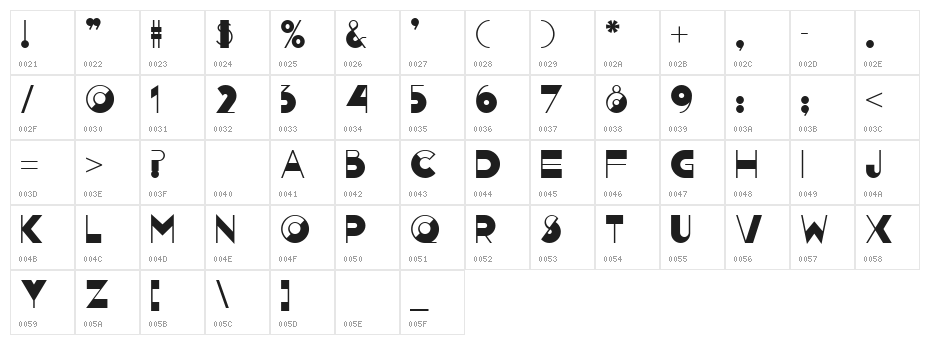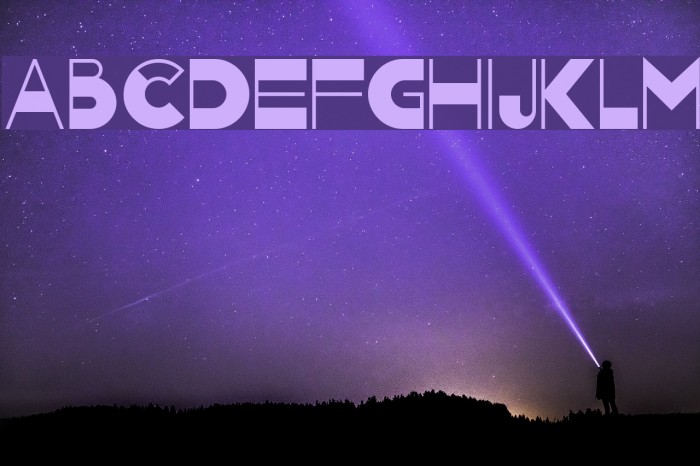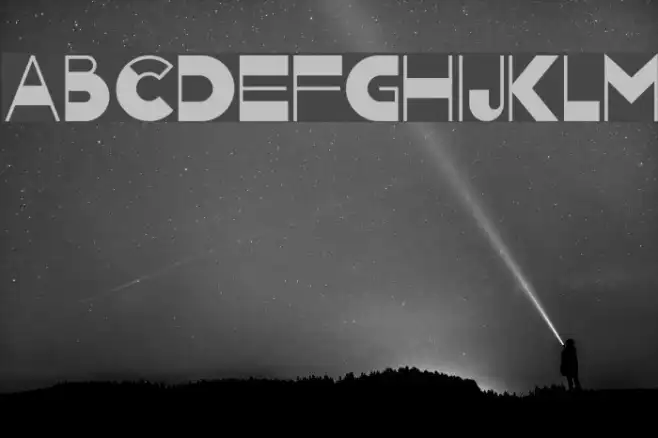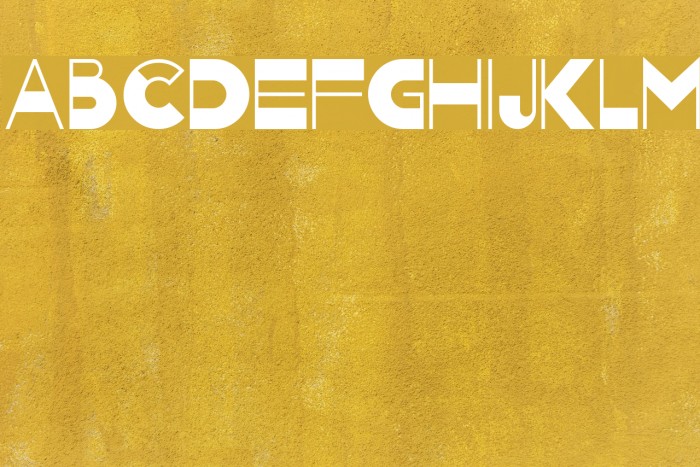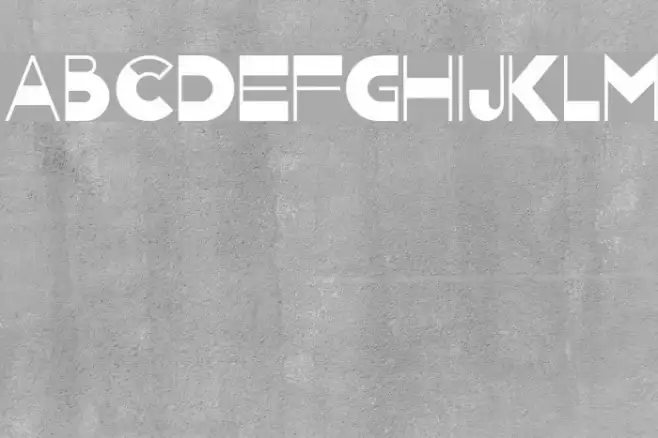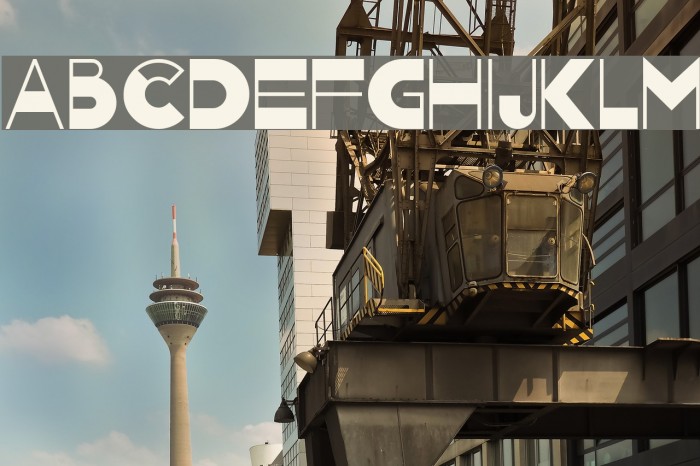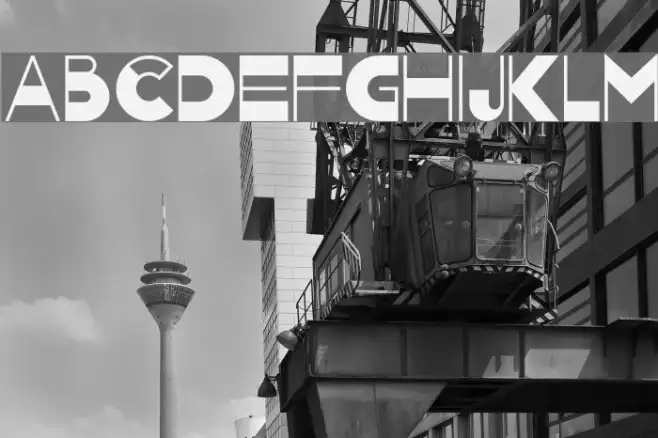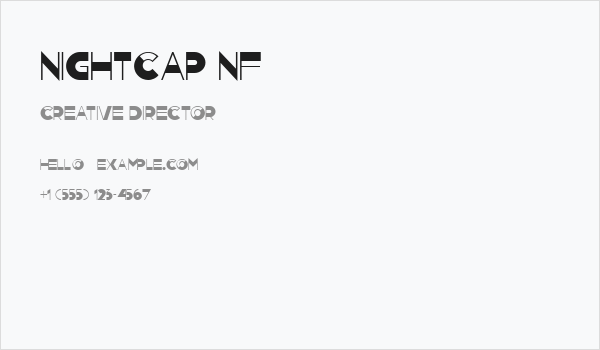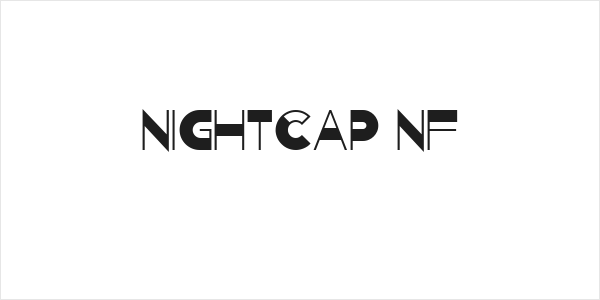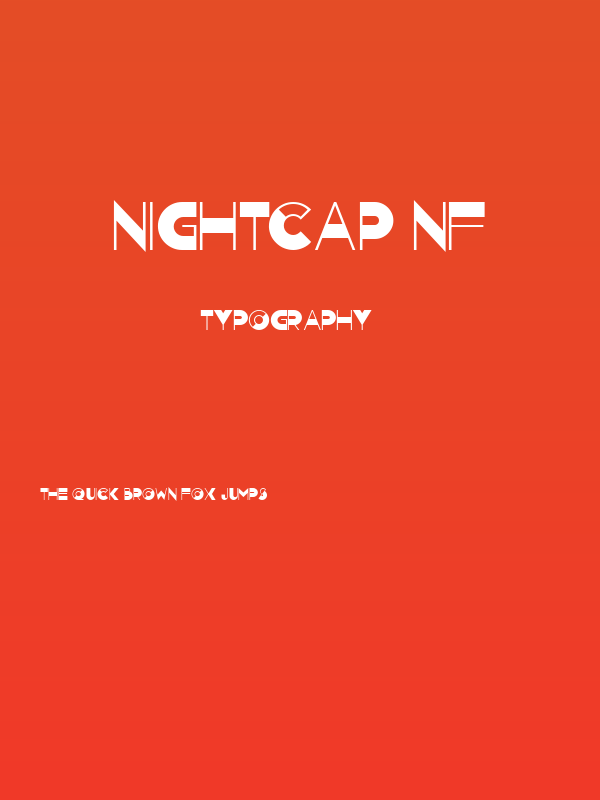
Nightcap NF Font
Nightcap NF Description
This font features a bold and geometric design, characterized by its strong, angular lines and circular elements. The uppercase letters exhibit a unique blend of sharp edges and rounded shapes, creating a modern and futuristic appearance. The lowercase letters maintain this style, offering a cohesive look across the alphabet. Numbers and special characters follow the same geometric theme, with distinct and easily recognizable forms. The overall design is striking and eye-catching, making it suitable for projects that require a bold statement.